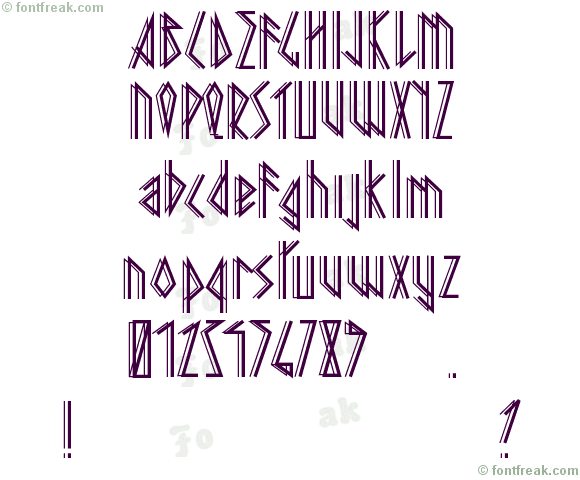
Pagan Winter
About Pagan Winter
Pagan Winter, designed by Roland Huse, is a striking decorative typeface that embodies a unique blend of elegance and whimsy. This font features intricate, angular letterforms that evoke a sense of mystique, making it perfect for projects that require a touch of enchantment. The stroke weight varies throughout the characters, creating an interesting visual rhythm that draws the eye. With its sharp contrasts and unconventional spacing, Pagan Winter sets itself apart from standard typefaces, offering a fresh perspective in typography.
This font is particularly well-suited for various creative applications. It shines in winter-themed wedding invitations, where its ethereal quality can enhance the romantic atmosphere. Additionally, it works wonderfully for movie posters, particularly in genres such as fantasy or horror, where its dramatic flair can captivate audiences. Restaurant menus that aim for a rustic or artisanal feel can also benefit from the unique characteristics of Pagan Winter, adding an artistic touch that complements the culinary experience. Furthermore, content creators looking to add a distinctive visual element to their branding or social media graphics will find this font to be an inspiring choice.
What truly sets the Pagan Winter font apart is its ability to blend artistry with functionality. Its captivating design invites exploration, making it not just a typeface, but a canvas for creativity. For anyone interested in enhancing their projects, the Pagan Winter font free download is an opportunity not to be missed.